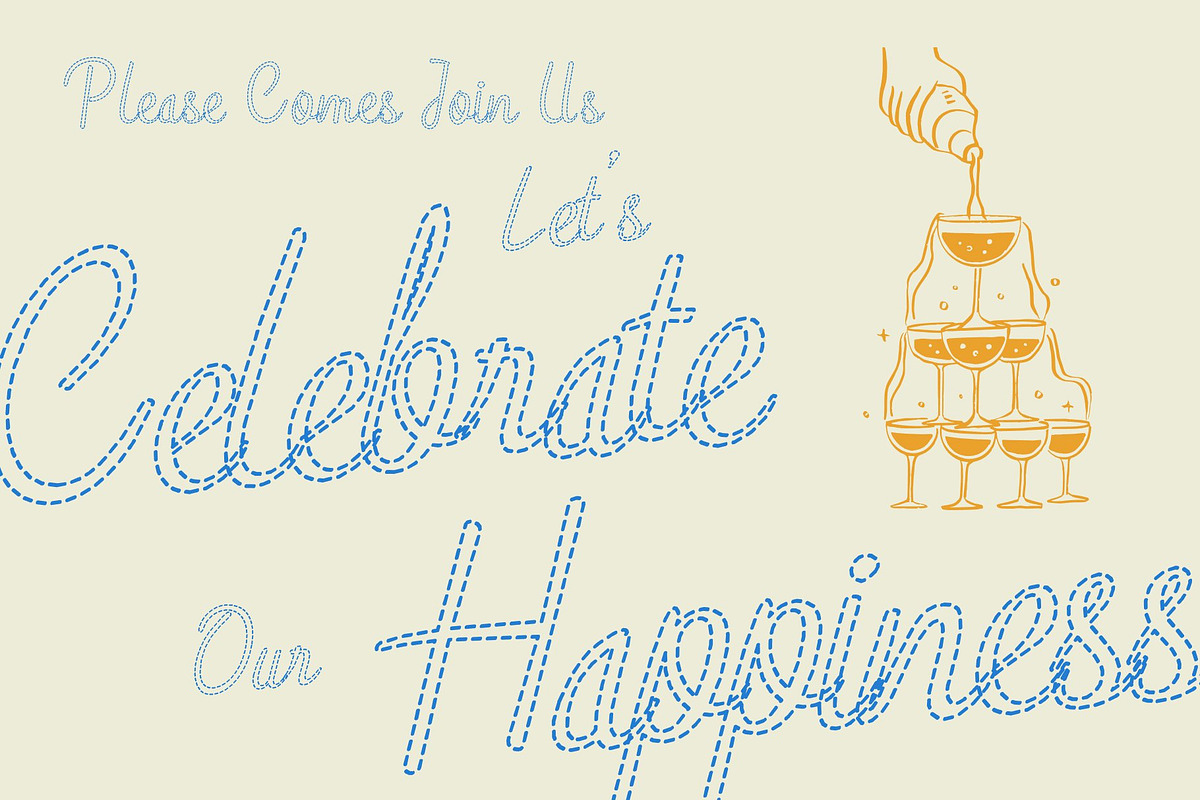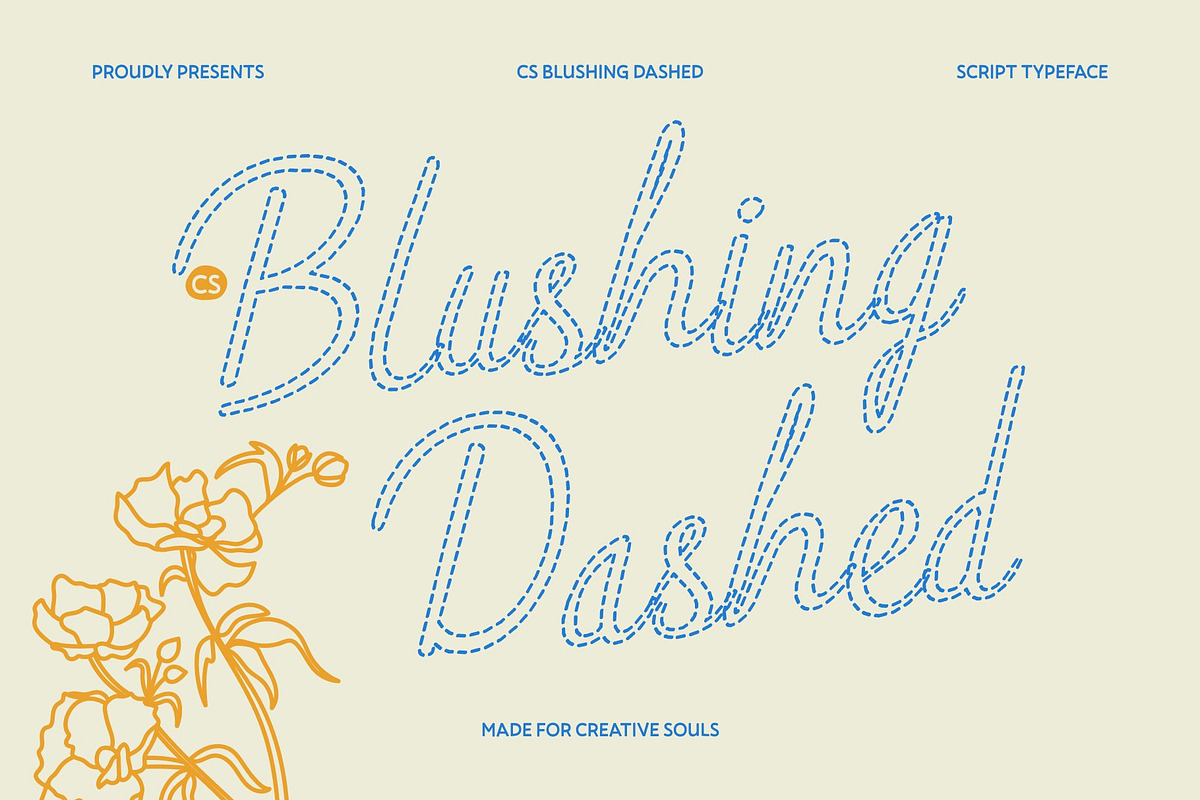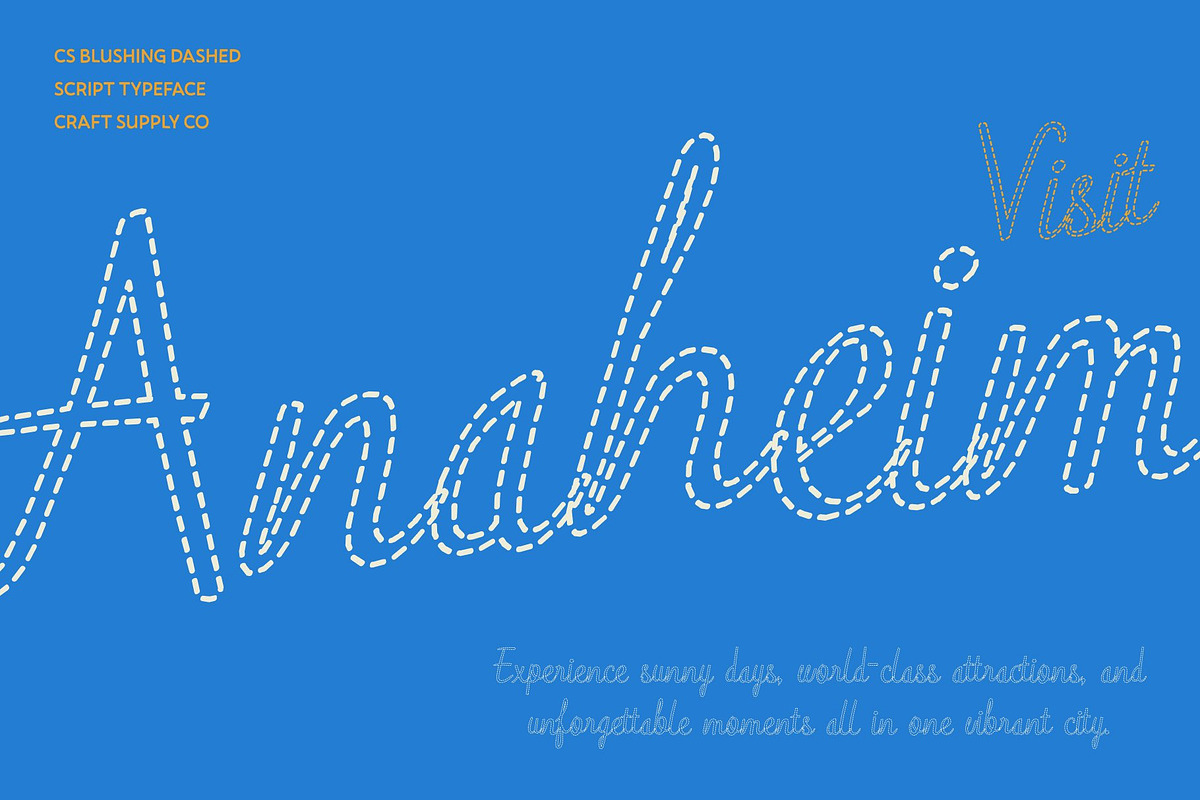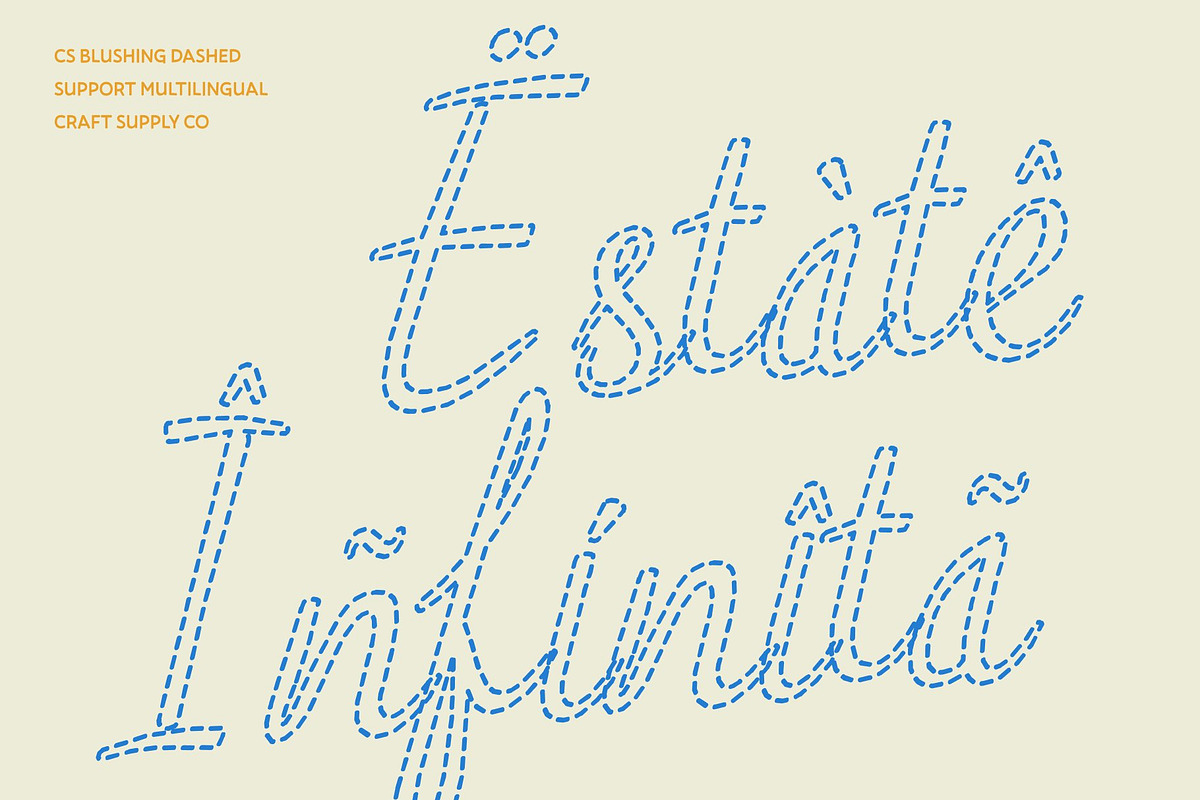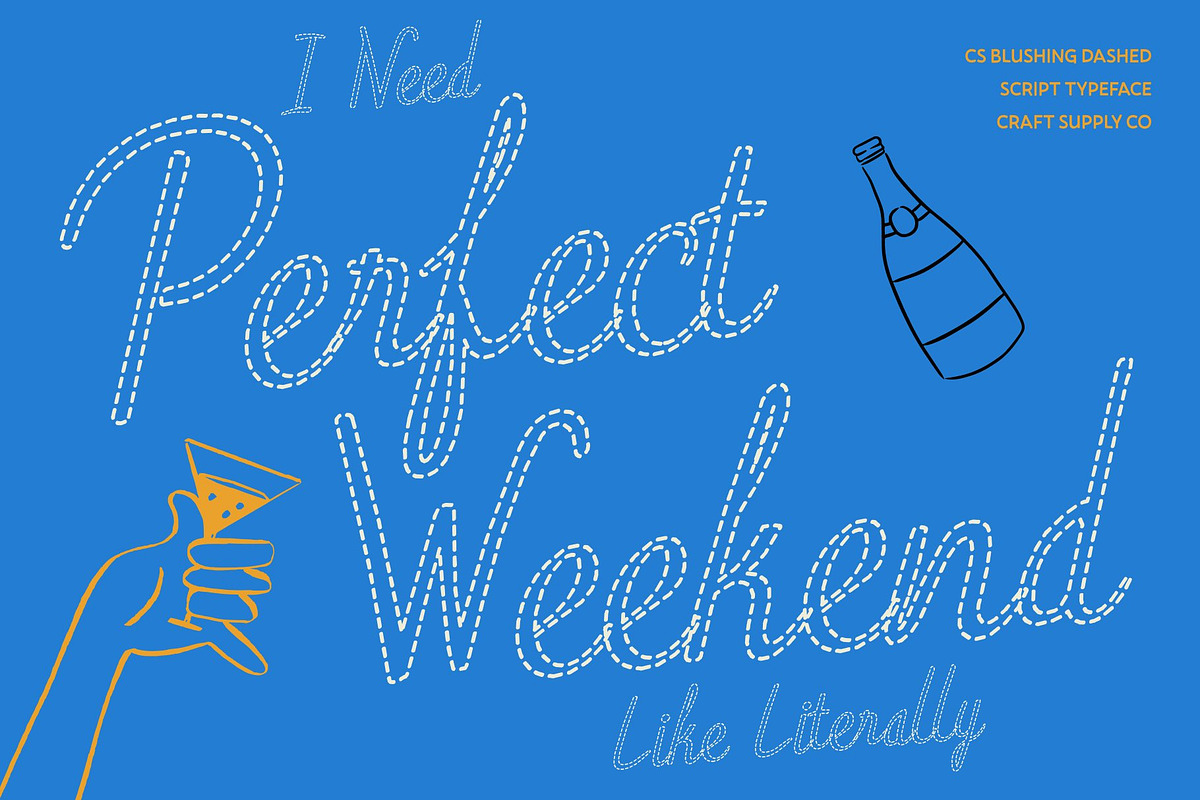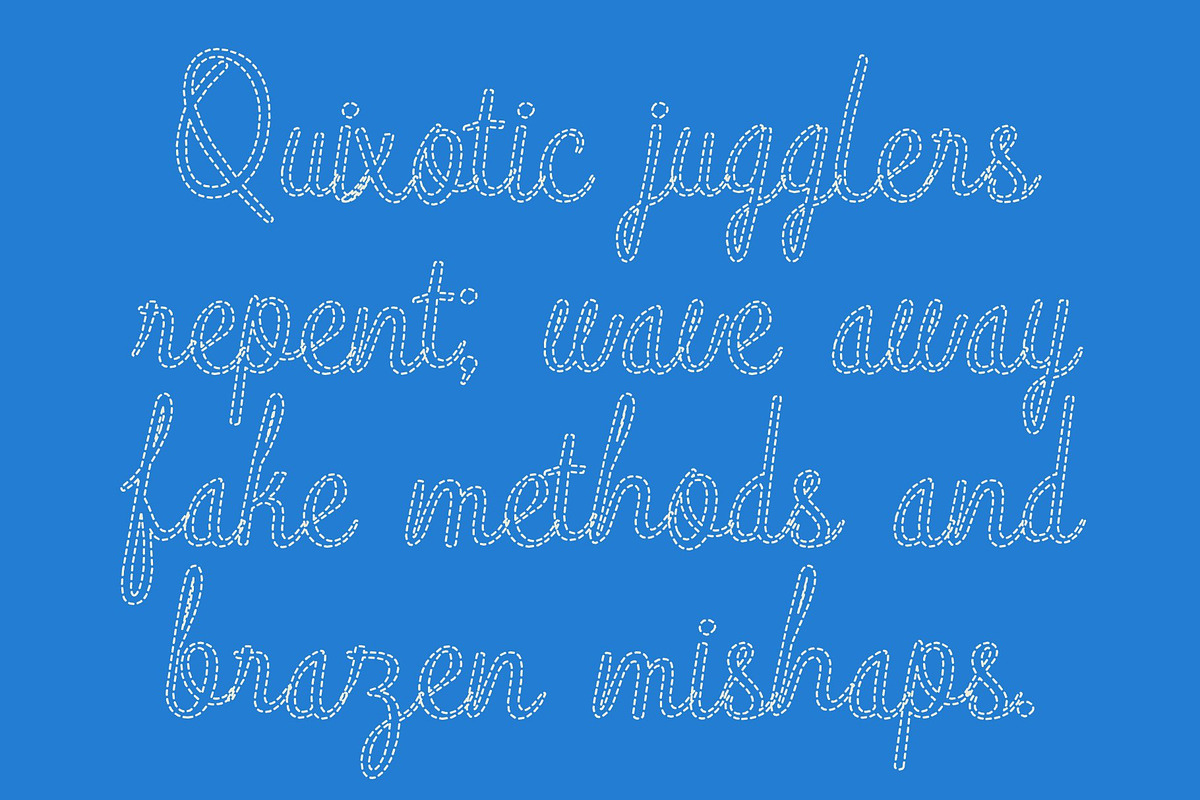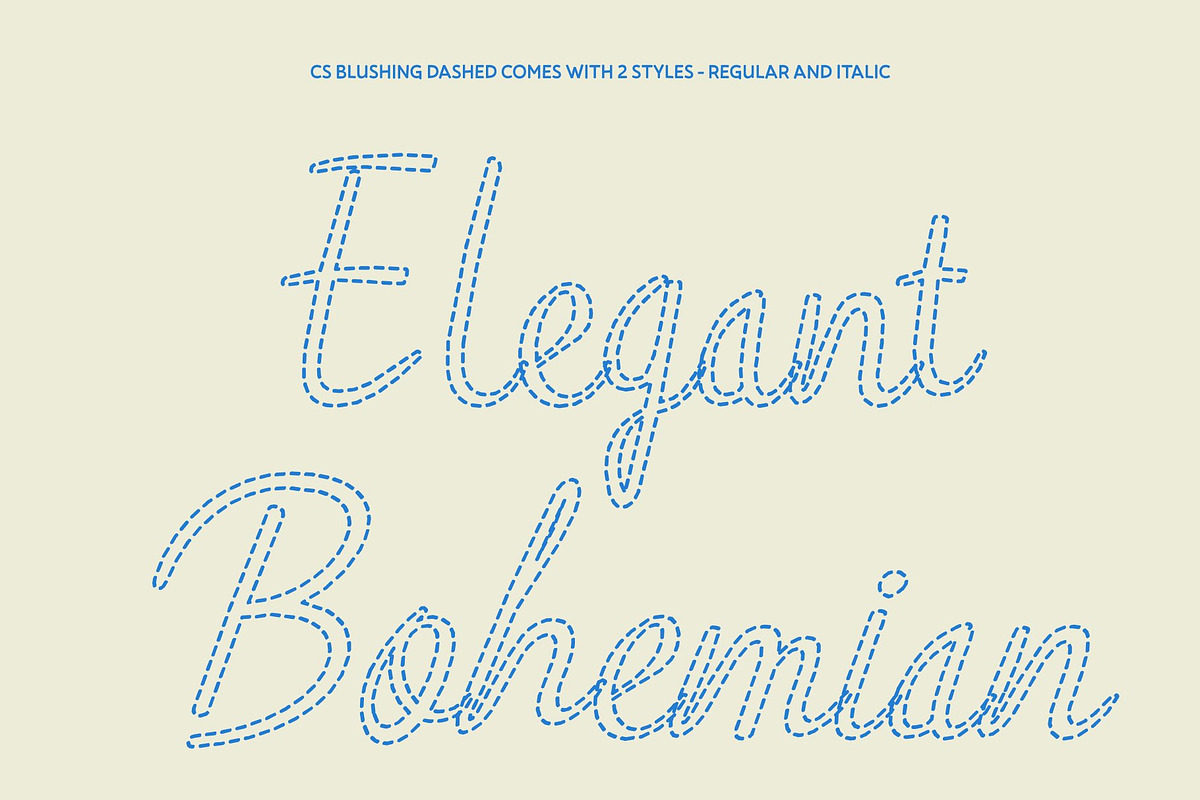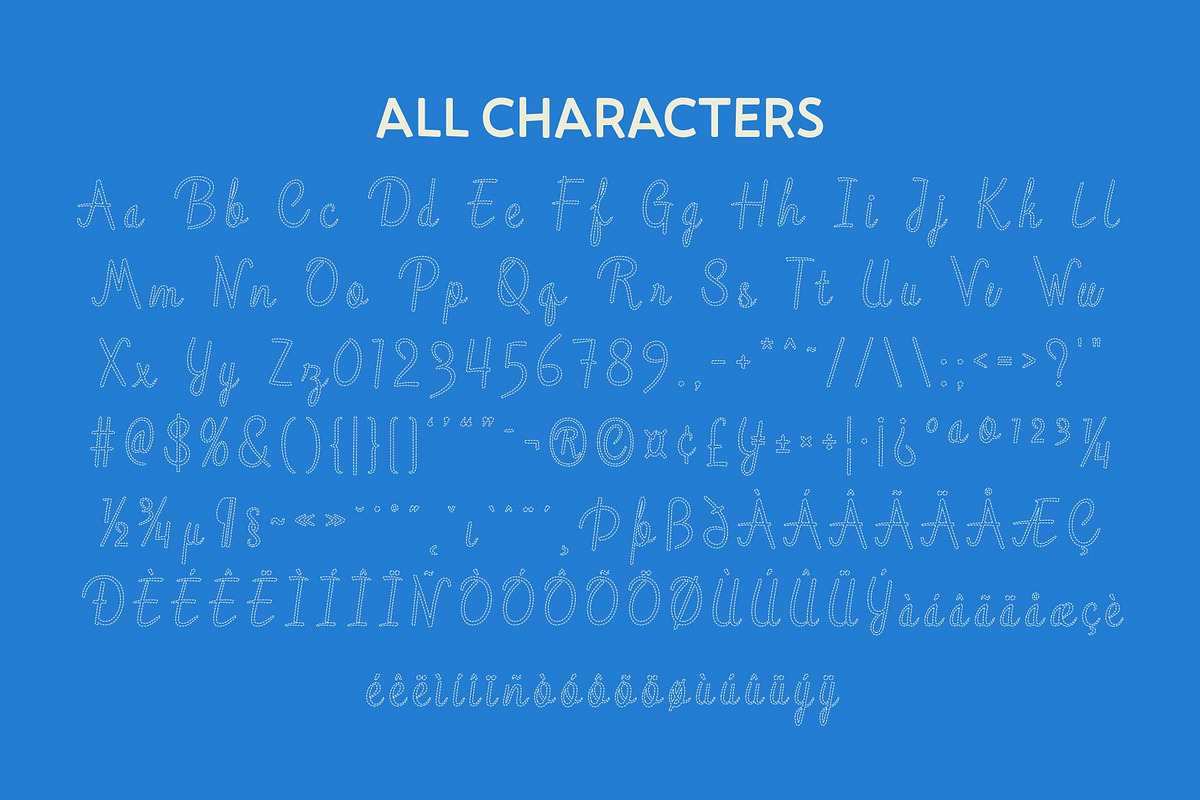
CS Blushing Dashed
CS Blushing Dashed – Script Font: Grace in Every Curve
Clean Flow with a Light Dashed Texture This font transforms elegant handwriting into a soft, airy script with delicate broken strokes. The flowing letterforms remain smooth and graceful, while the dashed structure introduces a handcrafted, creative texture that feels relaxed and expressive.
Feminine Elegance with a Modern Twist The refined curves and gentle rhythm preserve the font’s romantic charm, while the dashed style adds a contemporary and playful nuance. This balance creates a typeface that feels polished yet approachable perfect for designs that want sophistication without feeling too formal.
Perfect for Romantic and Creative Applications Ideal for wedding invitations, beauty branding, greeting cards, and social media quotes, the dashed strokes add personality and warmth. The style feels sweet, expressive, and naturally stylish, helping designs communicate emotion with subtle elegance.
Versatile for Charming Visual Projects From feminine branding and packaging to editorial layouts and digital content, this font enhances every composition with soft movement and creative charm. Its broken strokes give each word a lively rhythm, making every message feel thoughtfully crafted and beautifully presented.